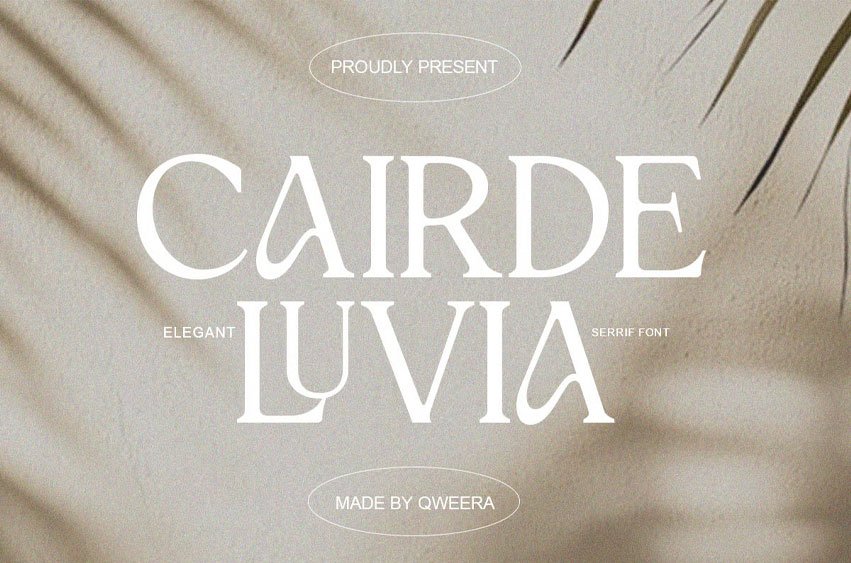
Cairde Luvia Font is an exquisite serif typeface that embodies refined elegance and timeless luxury. Featuring both Regular and Italic styles with premium alternates and ligatures, this font is meticulously crafted for high-end branding, luxury logos, premium packaging, and editorial designs that demand sophistication and prestige.
Where Timeless Elegance Meets Modern Luxury
With its graceful serifs and flowing italic variant, Cairde Luvia delivers exceptional versatility for discerning brands. The carefully designed alternates and ligatures enable flawless typographic harmony, perfect for creating distinctive visual identities with an air of exclusivity.
Premium Features Include:
- Luxury Serif Design – Exquisite letterforms with refined details
- Dual Style Versions – Regular & italic for dynamic applications
- Stylish Alternates – 20+ elegant character variations
- Sophisticated Ligatures – Seamless letter connections
- Universal Compatibility – From business cards to billboards
- Extended Latin Support – Comprehensive character set
Elevate Your Brand with Cairde Luvia’s Unmatched Elegance. Ideal for:
- Luxury fashion branding
- High-end cosmetic packaging
- Premium editorial layouts
- Elegant logo creation
- Sophisticated stationery design